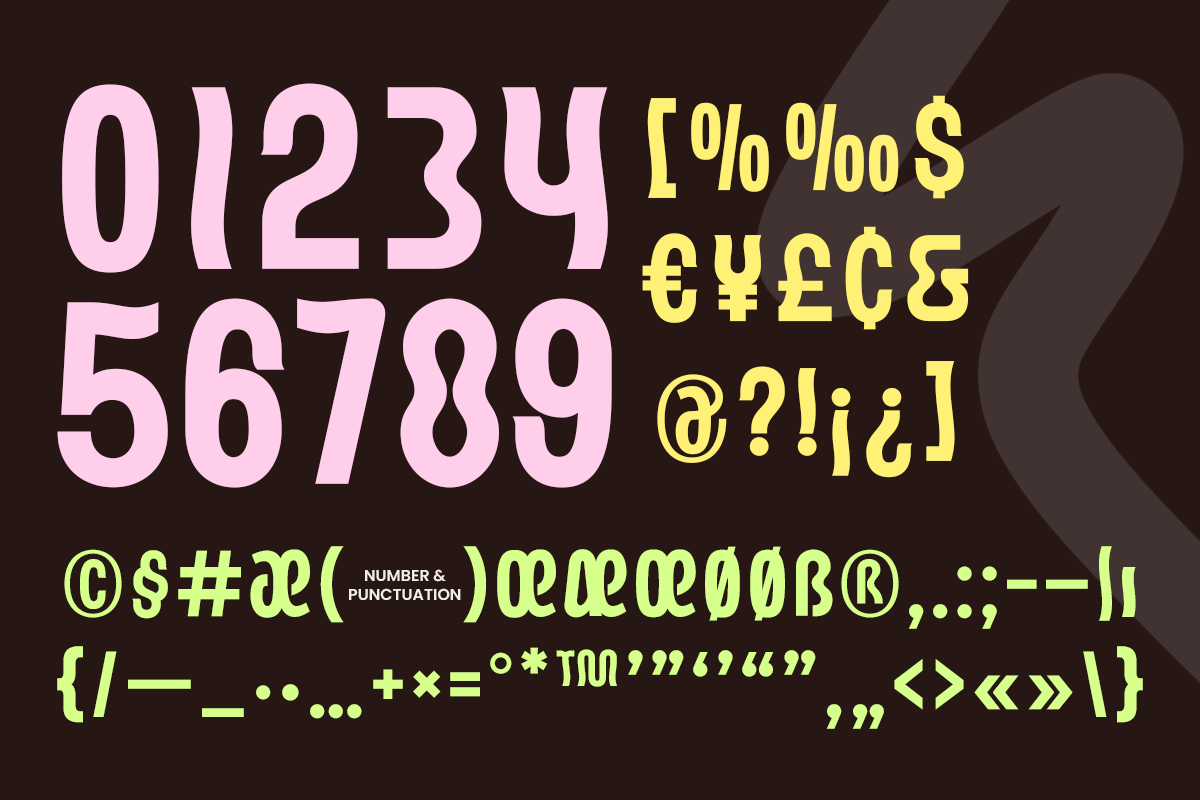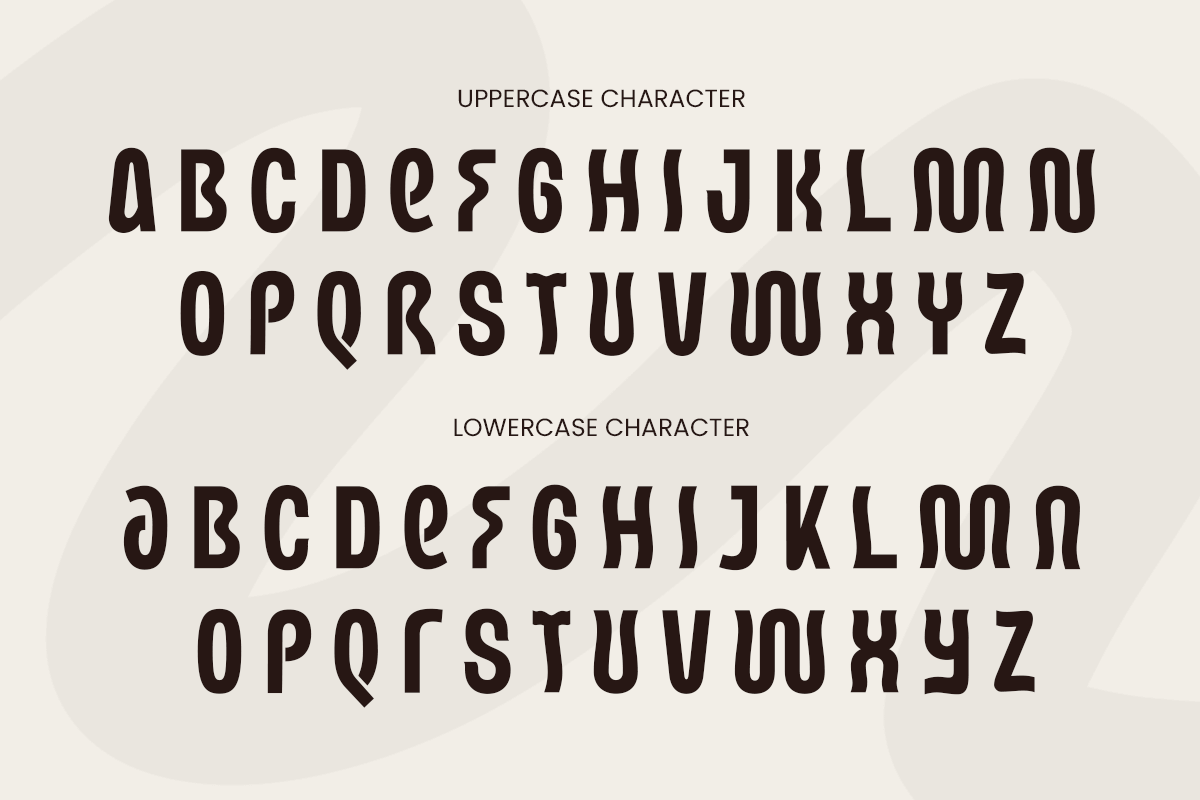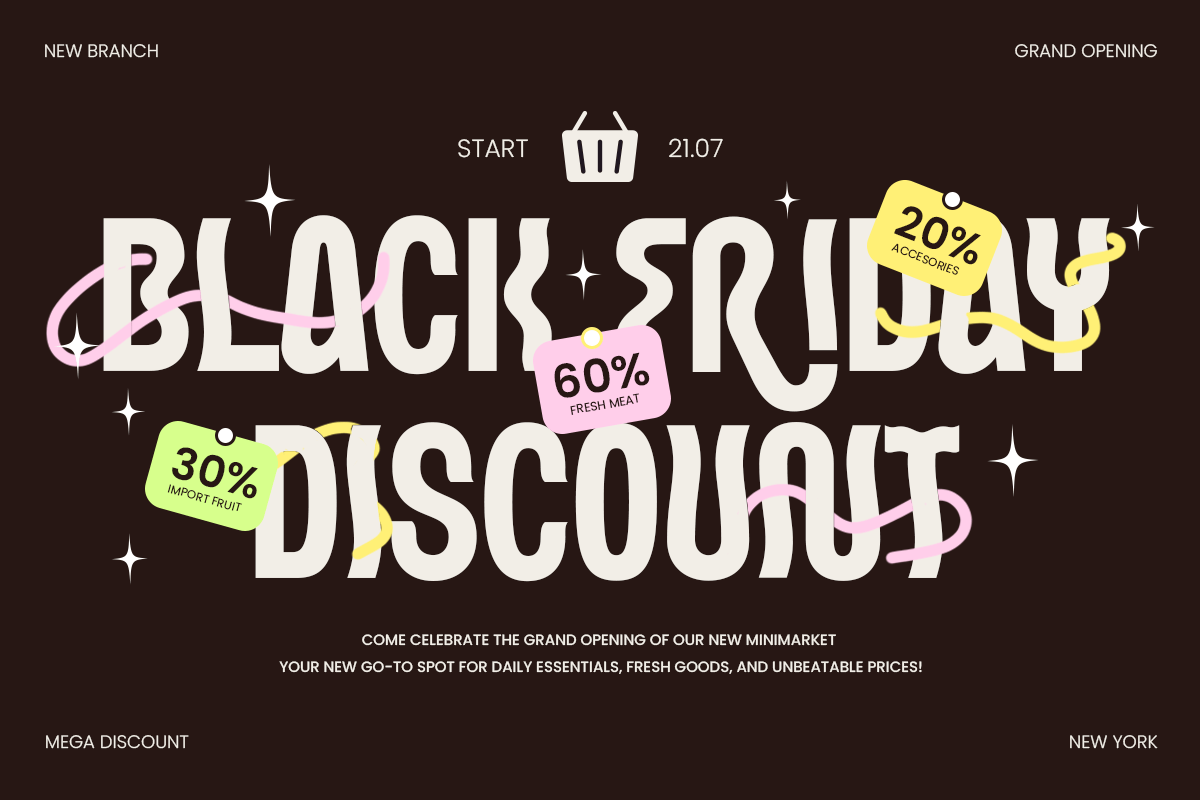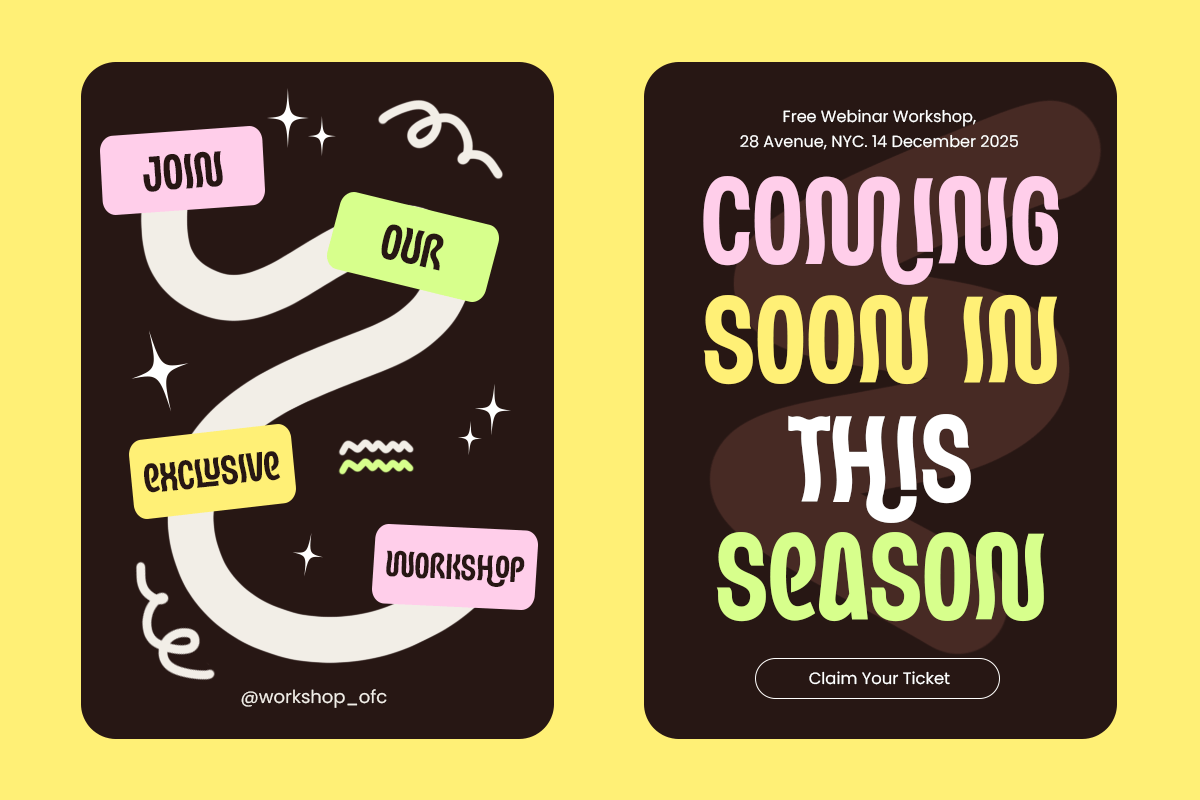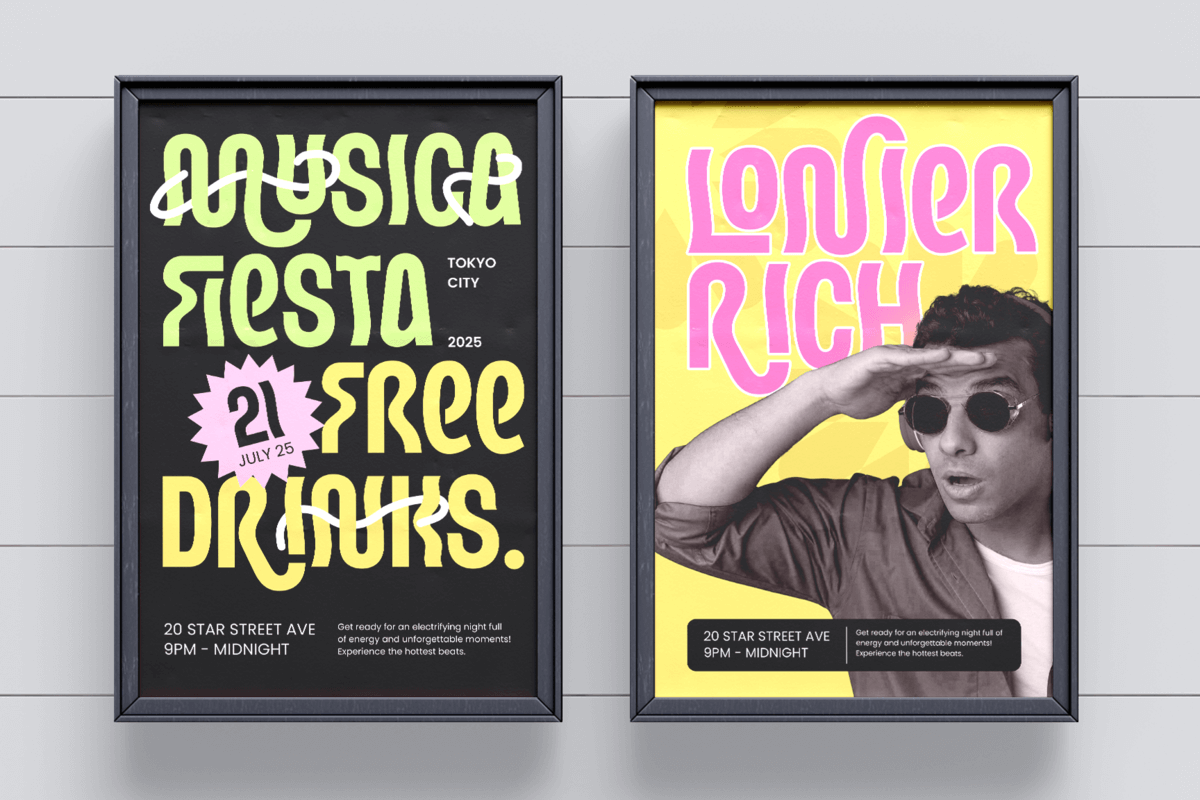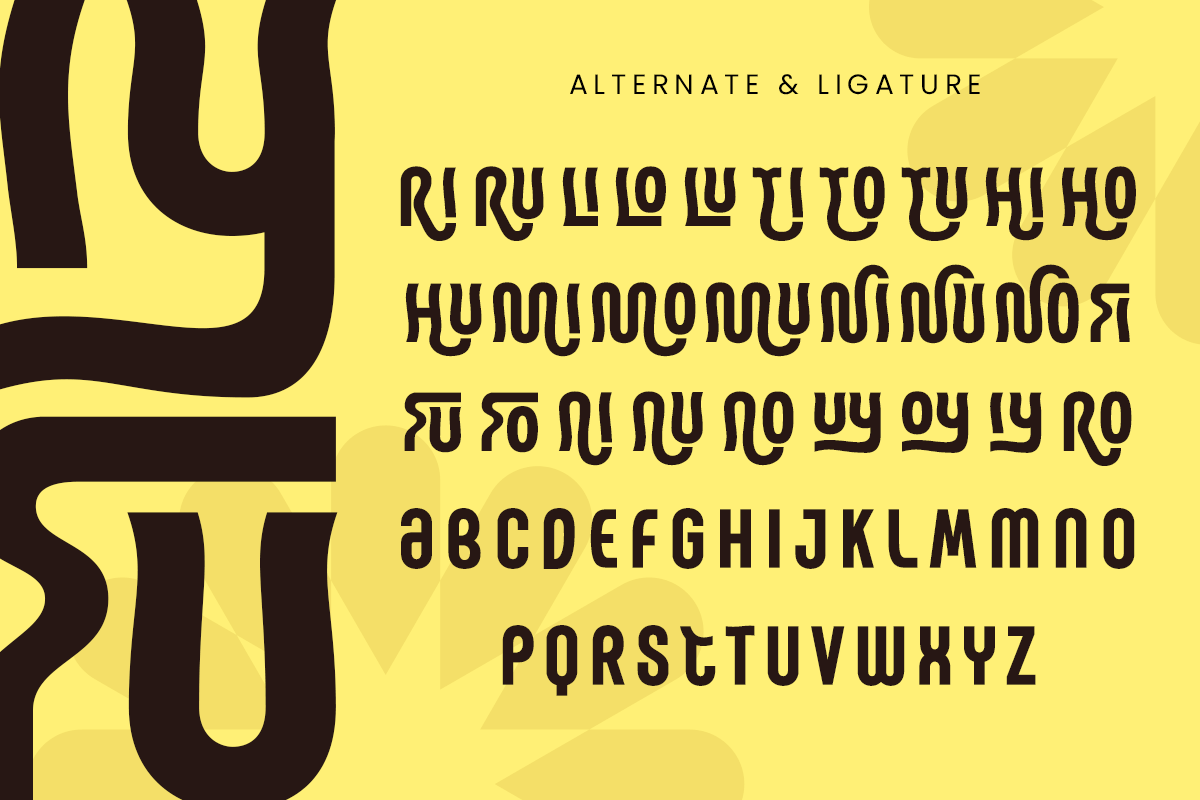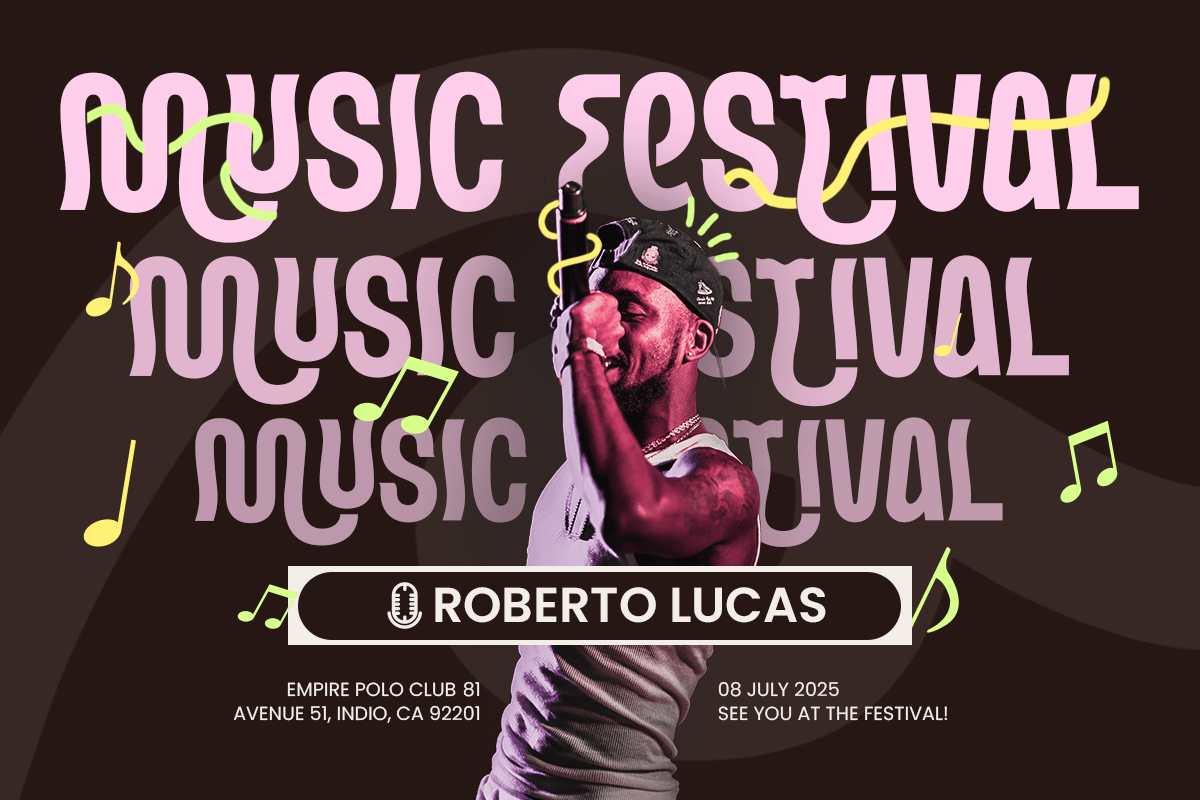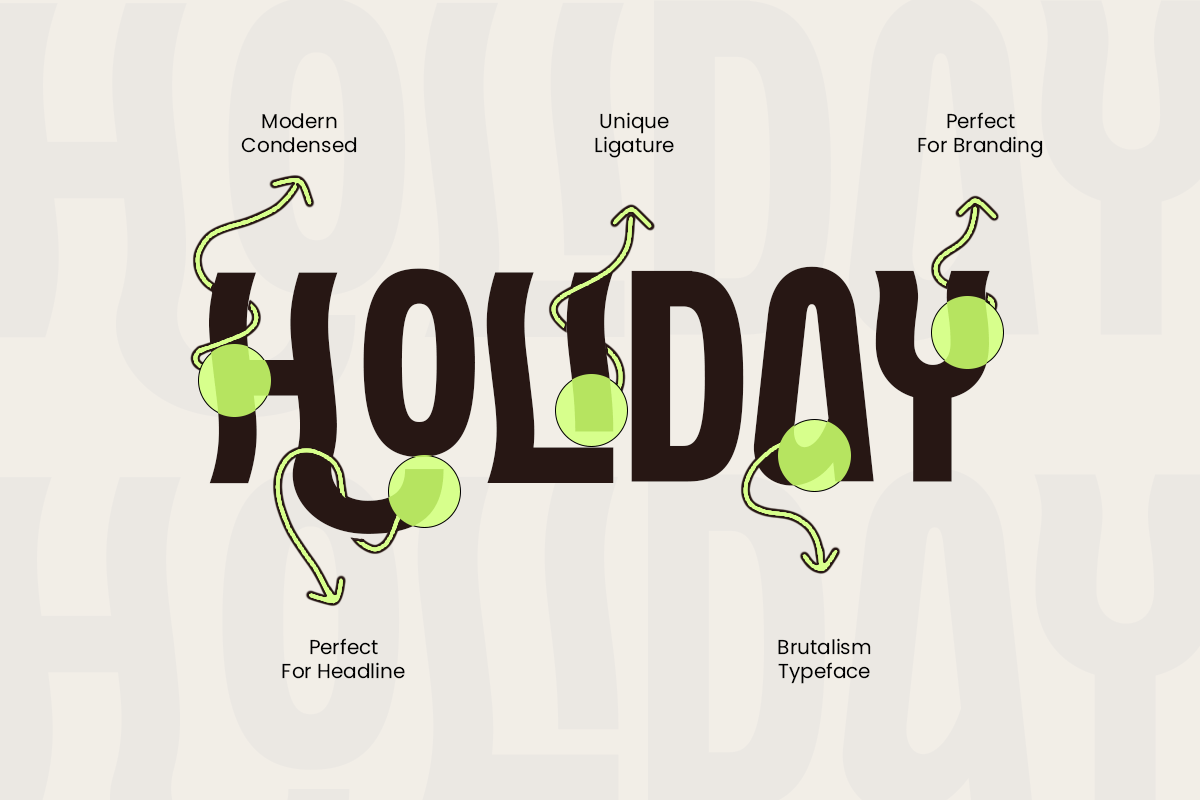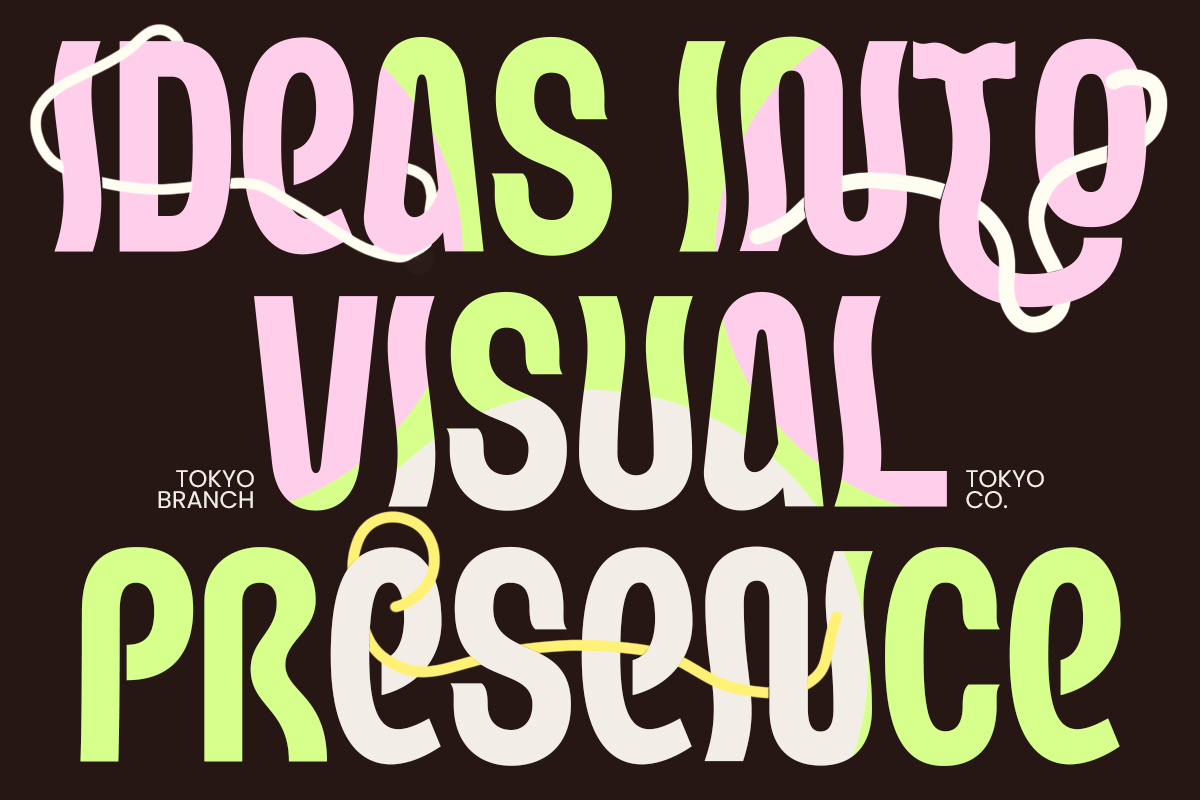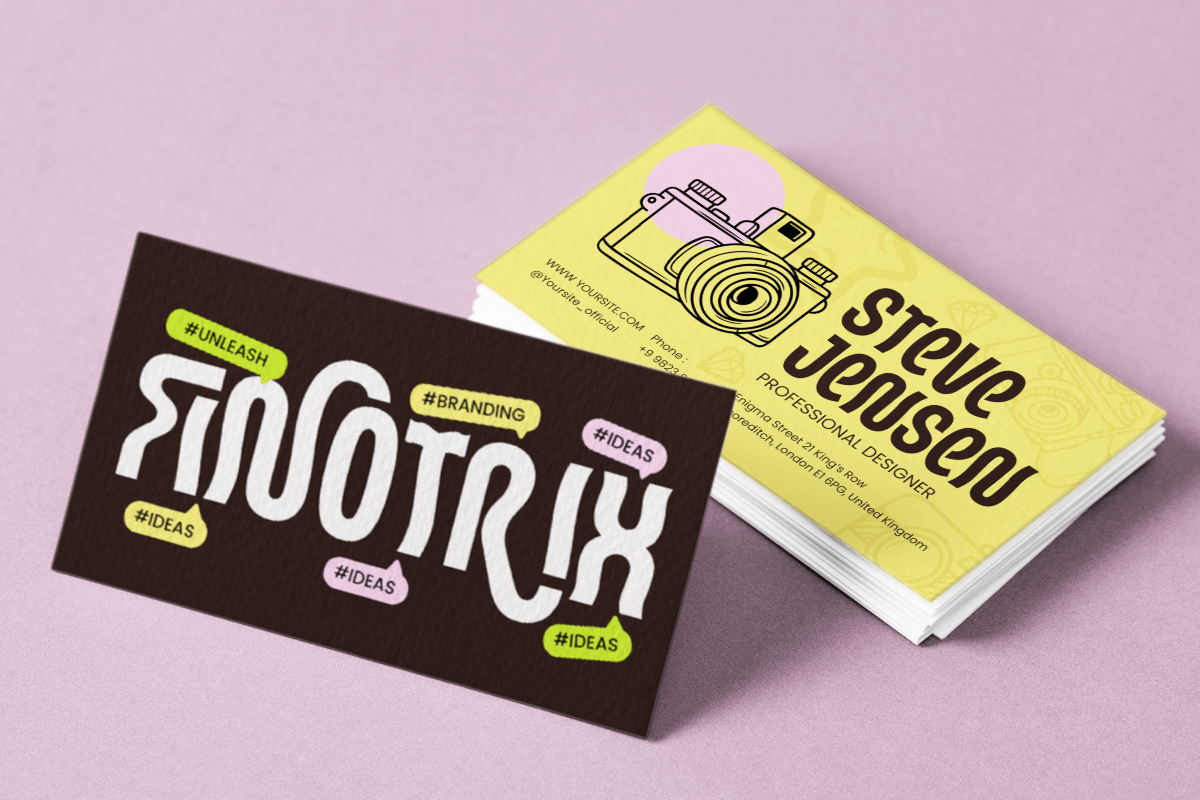
Waren Modern Creative Branding Font
WAREN is a display creative branding font designed to bring originality, confidence, and expressive character to modern visual identities. With distinctive letterforms, balanced proportions, and a strong display presence, this typeface is perfect for logos, branding projects, posters, editorial titles, packaging, and creative campaigns.
Crafted for designers who want typography with personality, WAREN combines contemporary aesthetics with a unique visual style. Its memorable shapes help brands stand out while maintaining a professional and versatile appearance across various design applications.
Whether used for creative studios, fashion brands, lifestyle products, advertising materials, or digital content, WAREN delivers a bold and engaging typographic experience for both print and digital media.
WAREN – Display Creative Branding Font Features
Creative display style with unique branding character
Perfect for logos, headlines, posters, packaging, and identity systems
Distinctive letterforms with modern visual appeal
Ideal for creative agencies, fashion, lifestyle, and contemporary brands
Uppercase, lowercase, numerals, and punctuation included
OpenType features for enhanced typographic flexibility
Create a distinctive visual identity with WAREN – the perfect creative display font for modern branding, bold typography, and unique design projects. ✨